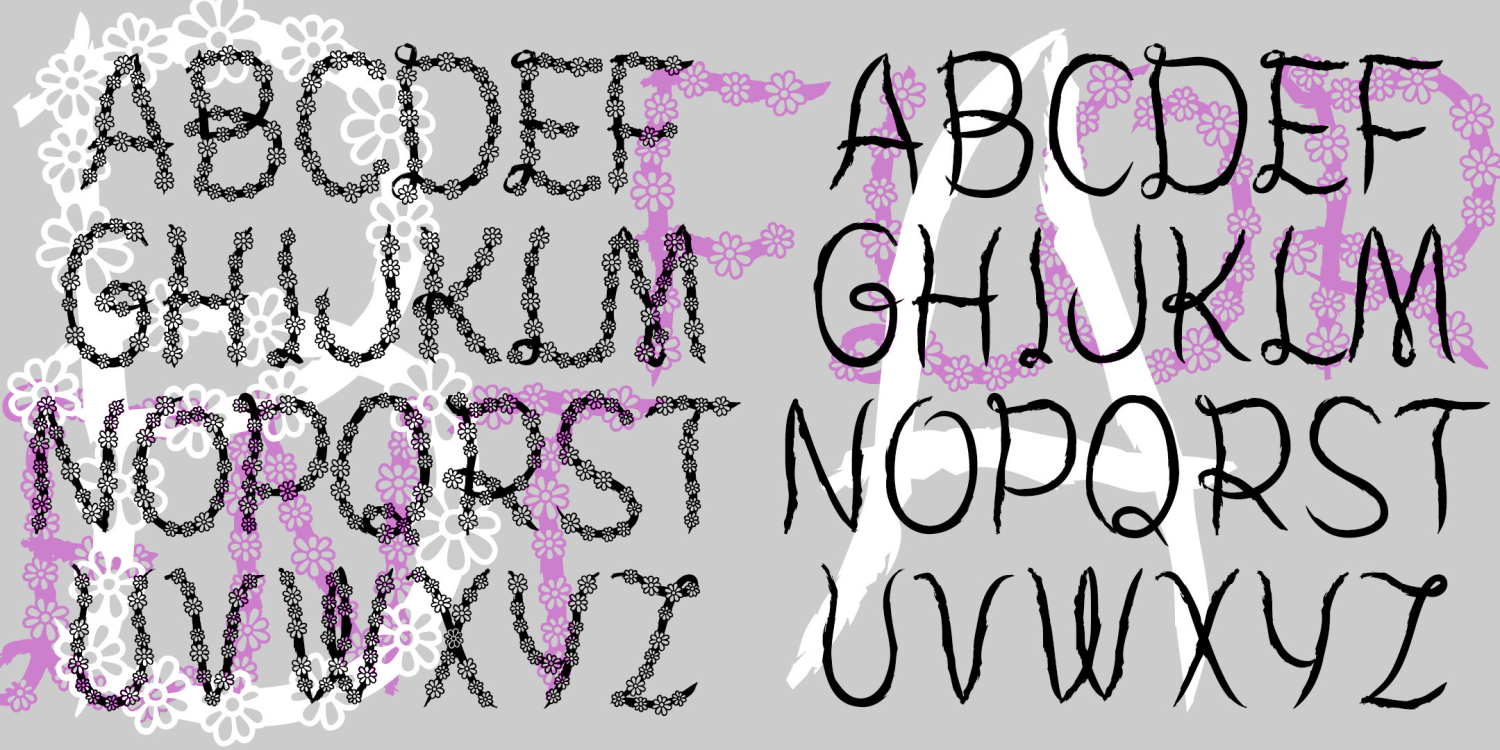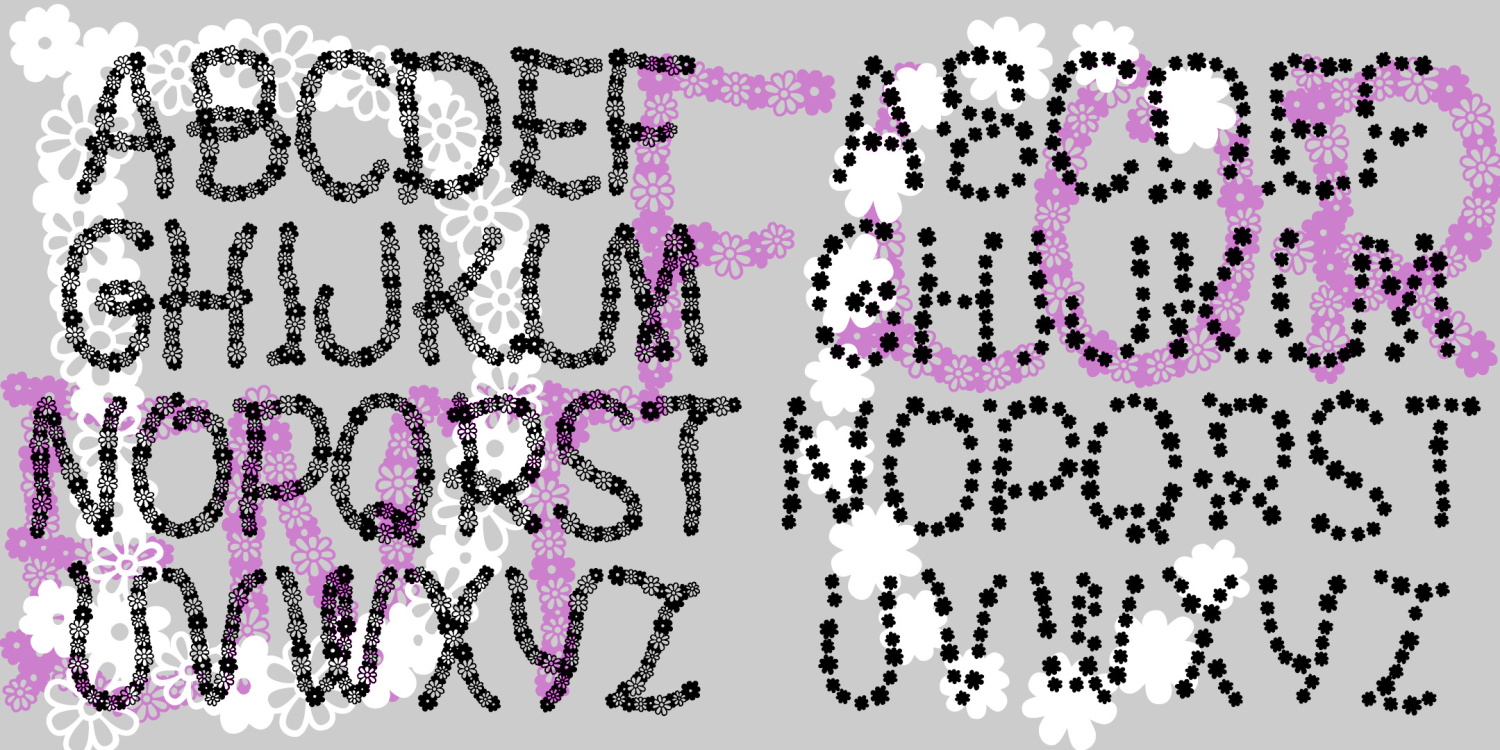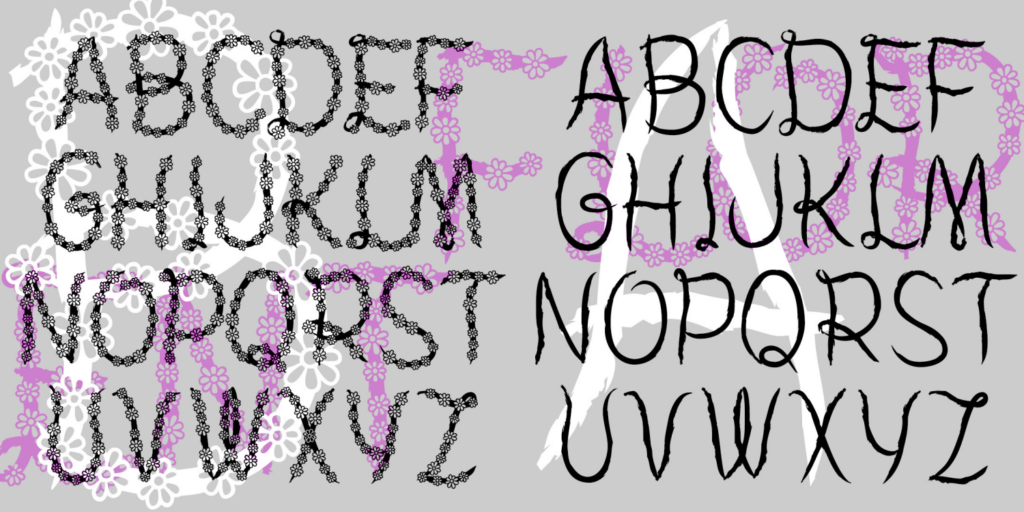
Florent
About Florent
The FLORENT fonts are full of beautiful floral detail. They were inspired by an historical sample called "Garland" in one of Dan X. Solo's collections. My fonts are completely redrawn, refined and expanded. I've divided the details up…